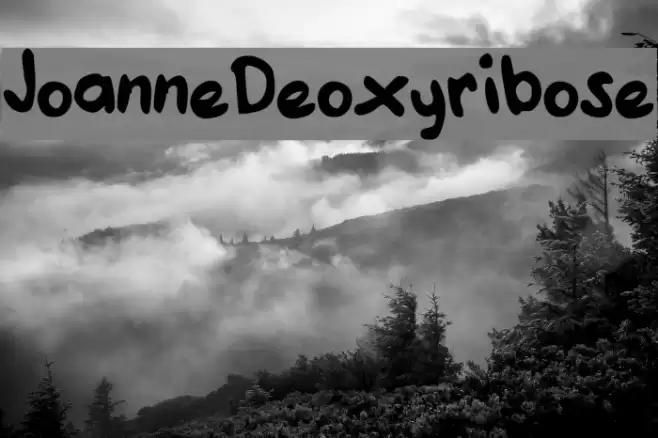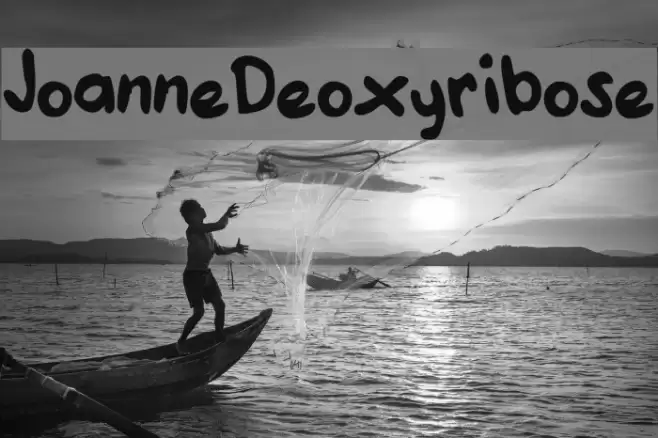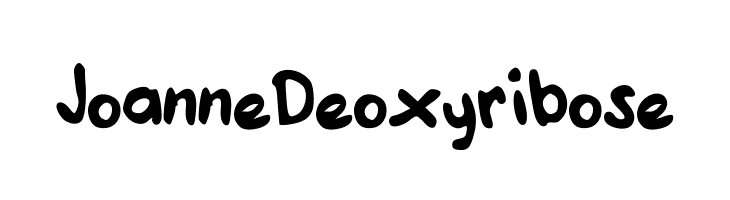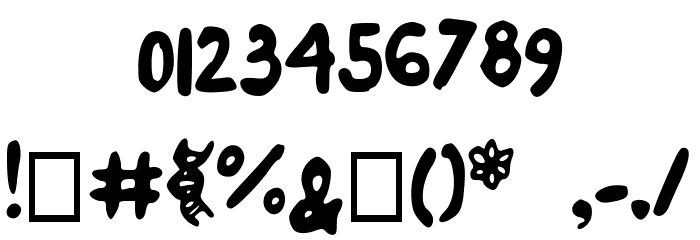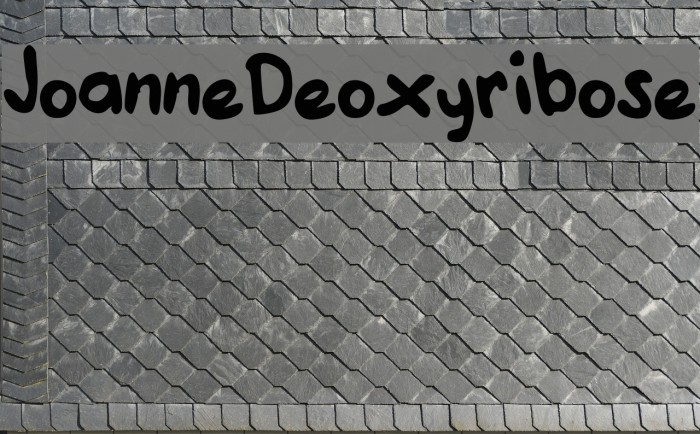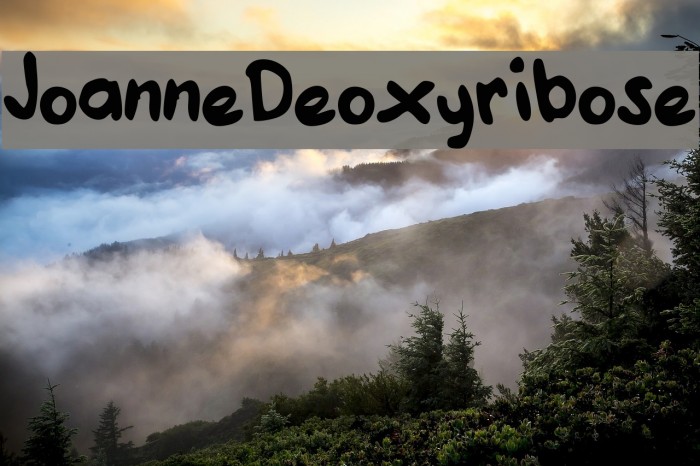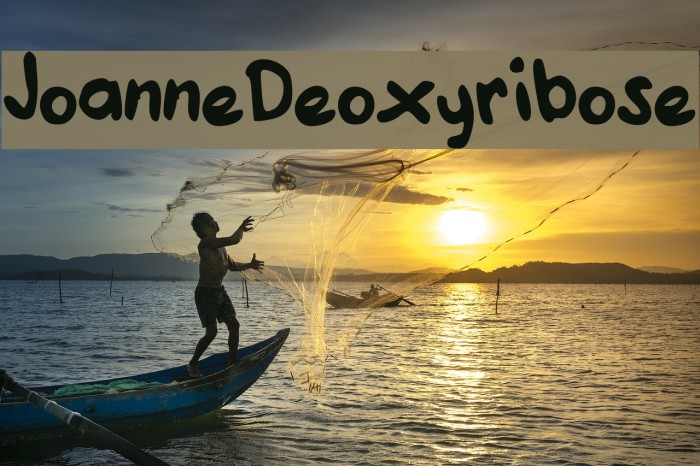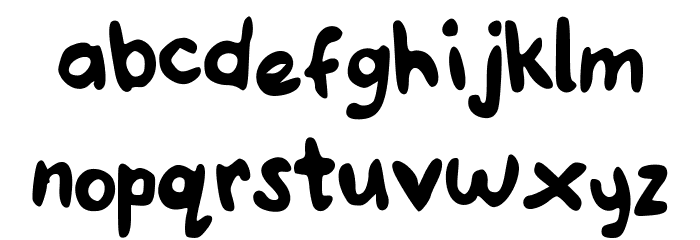
JoanneDeoxyribose Font
JoanneDeoxyribose Description
This playful and bold font features a hand-drawn style with rounded edges and a slightly irregular baseline, giving it a whimsical and friendly appearance. The characters are thick and substantial, making them highly legible and suitable for attention-grabbing designs. The uppercase and lowercase letters maintain a consistent style, with a slight variation in stroke width that adds to the font's charm. The numbers and special characters are equally bold and match the overall aesthetic, ensuring a cohesive look across all text elements.
A playful, bold, hand-drawn font with rounded edges and a whimsical style from Comic fonts.
- Overall Style: Playful